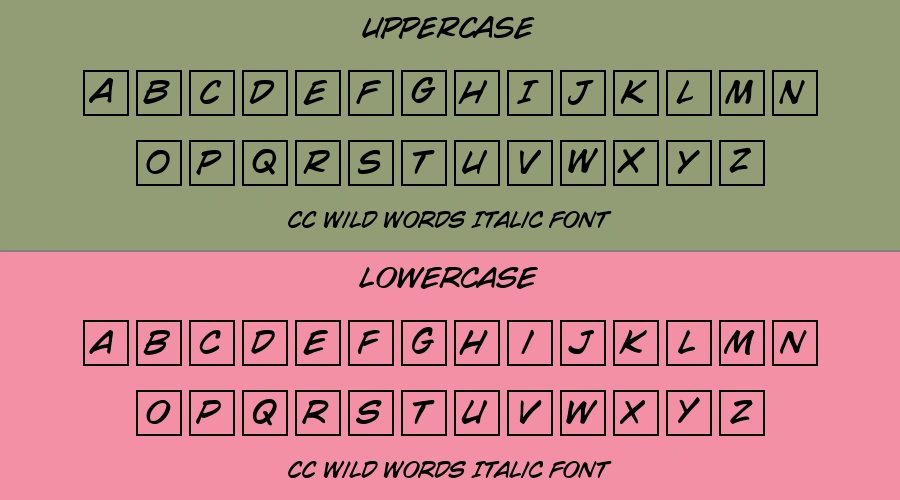
About CC Wild Words Italic Font
CC Wild Words Italic Font represents a sophisticated approach to type design, balancing balanced proportions with performance stability. Perfect for wine labels, this font family showcases impressive versatility and aesthetic excellence throughout its character set. Designers appreciate its versatility and reliability.
Designers will appreciate nuanced touches including graceful transitions and inferior figures, adding sophistication to any project. These features become apparent in business cards, where weight distribution matters most. The careful treatment of letterfit and contemporary relevance ensures optimal performance.